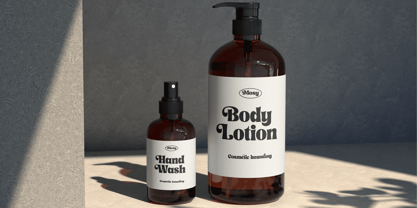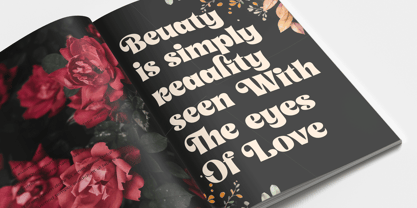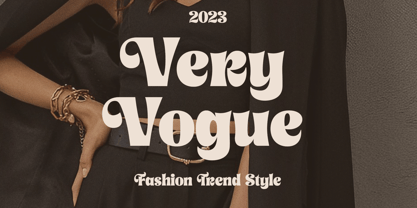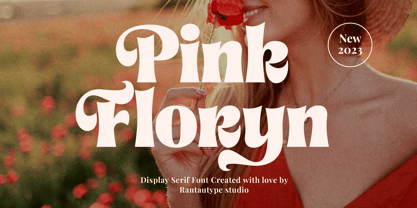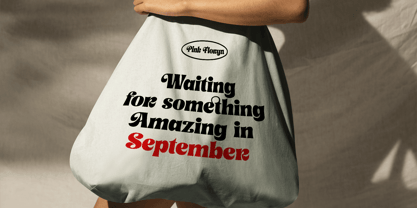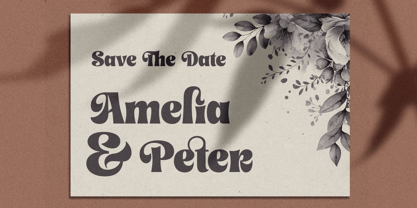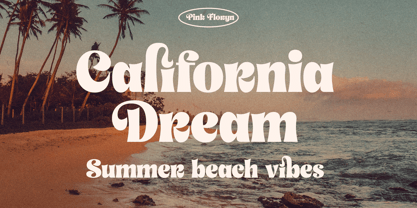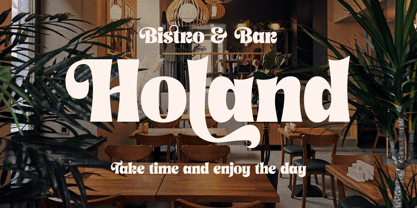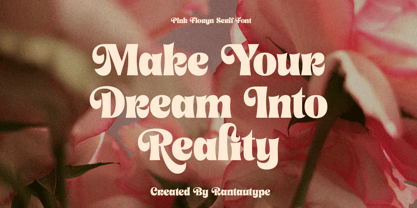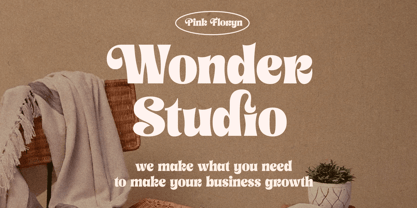
Pink Floryn
by RantauType
The Pink Floryn Font Family was designed by Yudi Pratama Chandra and published by RantauType. Pink Floryn contains 2 styles and family package options.
Proudly present beautiful display serif font called Pink Floryn by rantautype.
Pink Floryn is a beautiful font that bold curve make it look Unique, elegant, modern, and versatile serif Font. Come with more alternate and ligature you can mix and max to create a more stunning display.
Pink Floryn separate is a beautiful choice for any creative endeavor, creating elegant, modern, chic, lifestyle design such as logos, title, cover, branding, display and magazine, and more. Now you have more choice Pink Floryn to make stunning brranding.